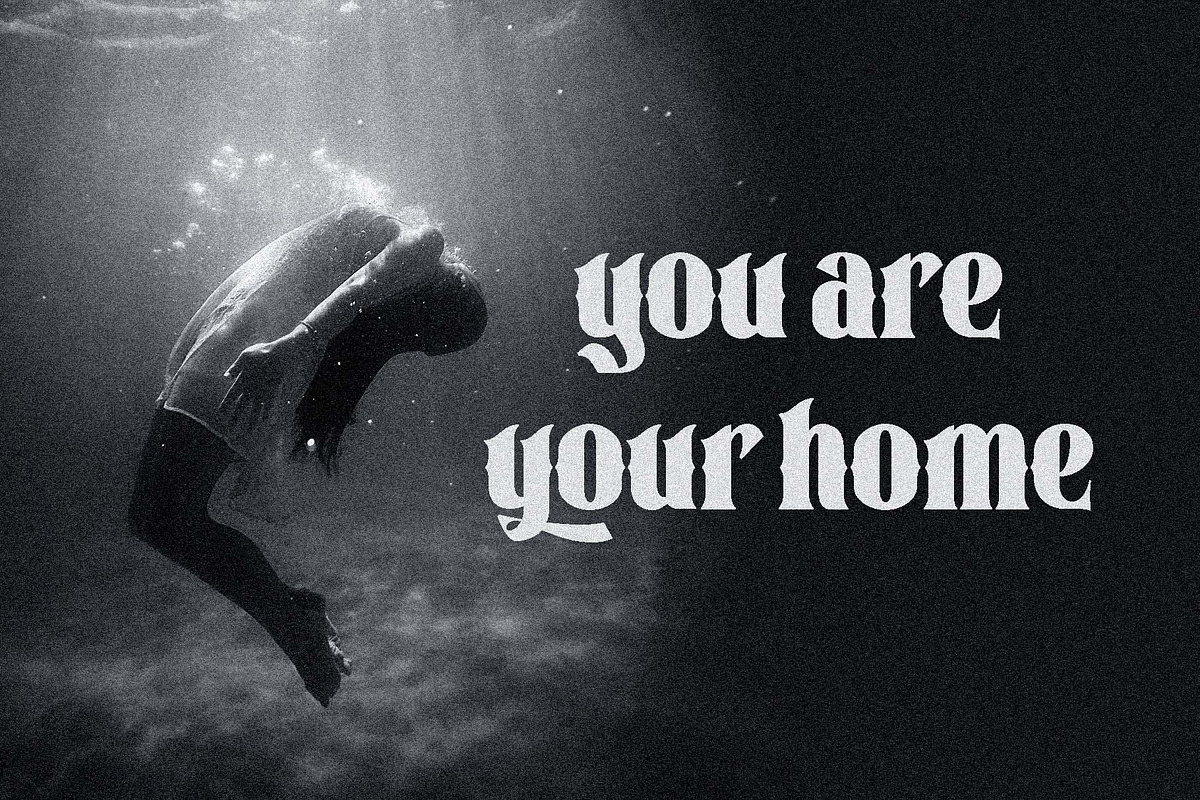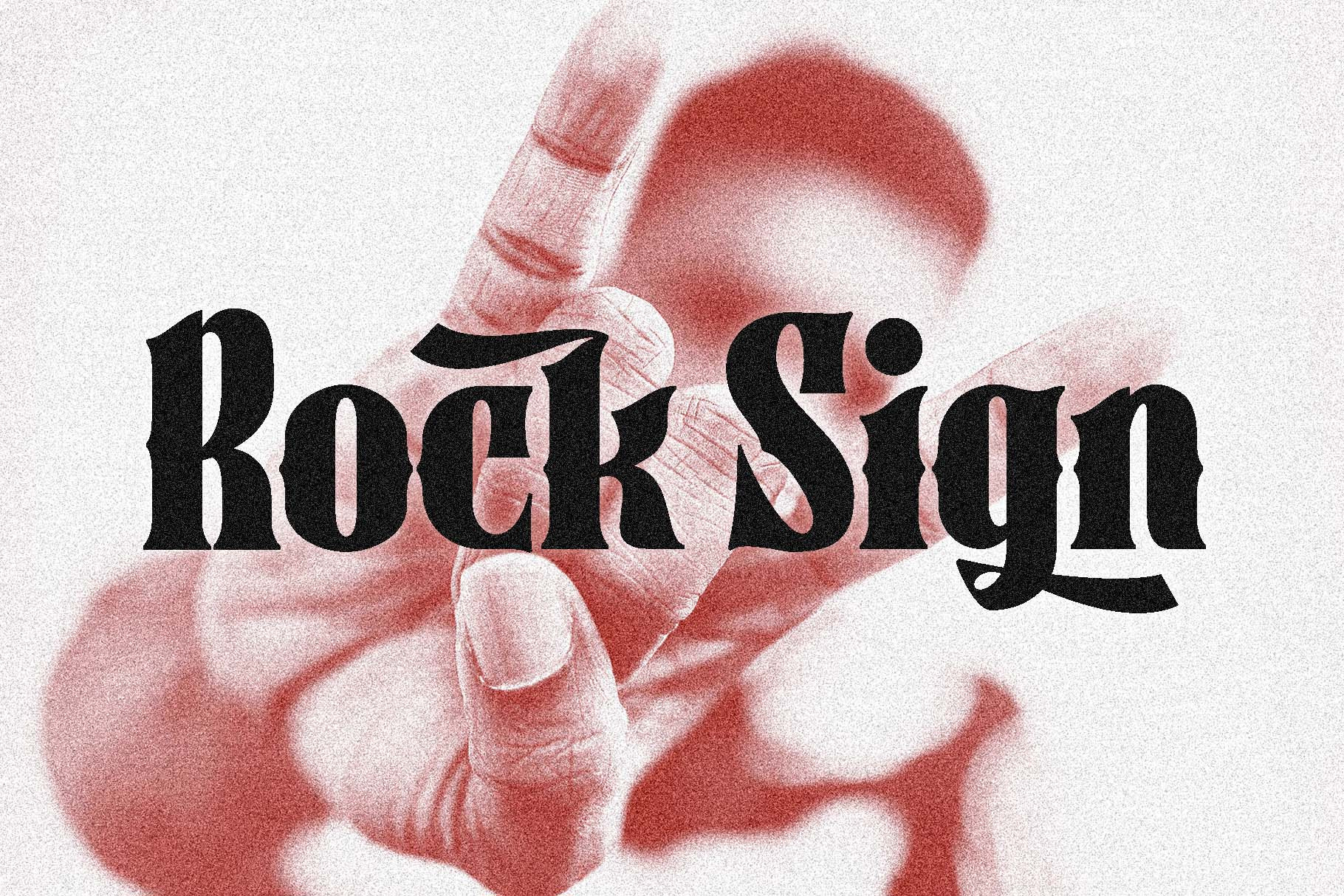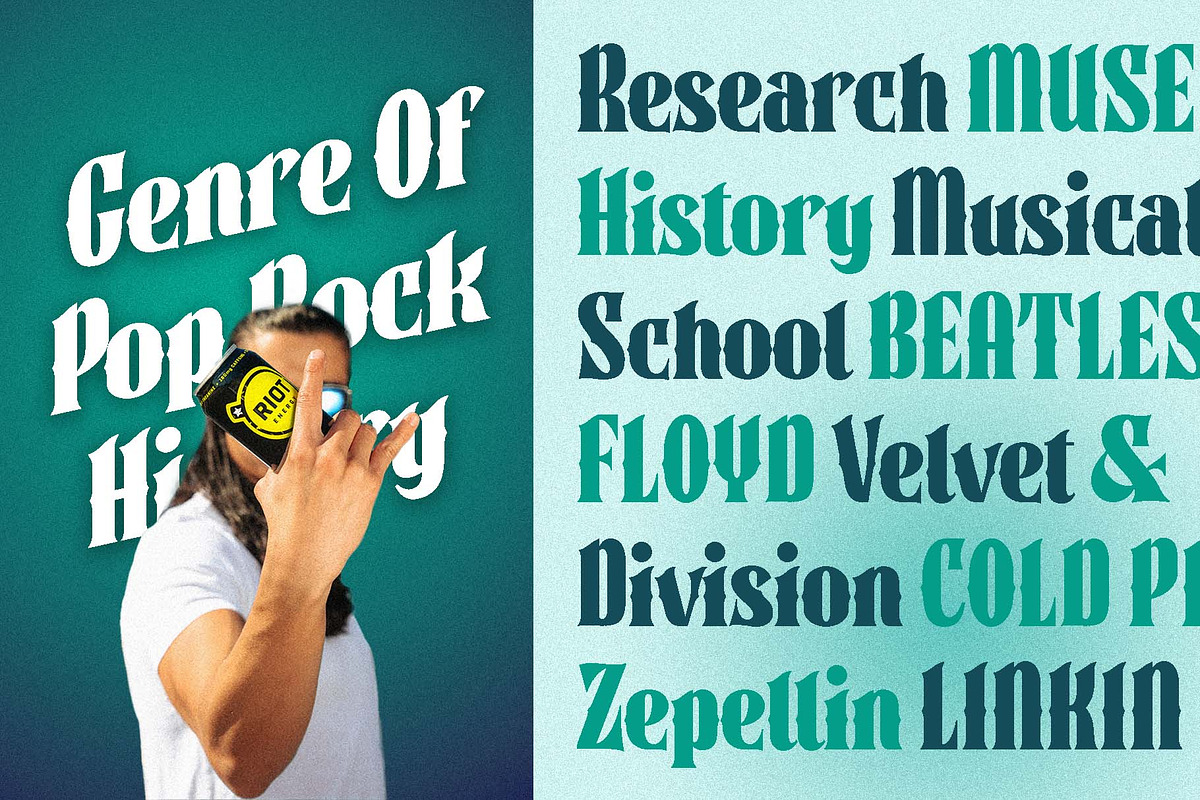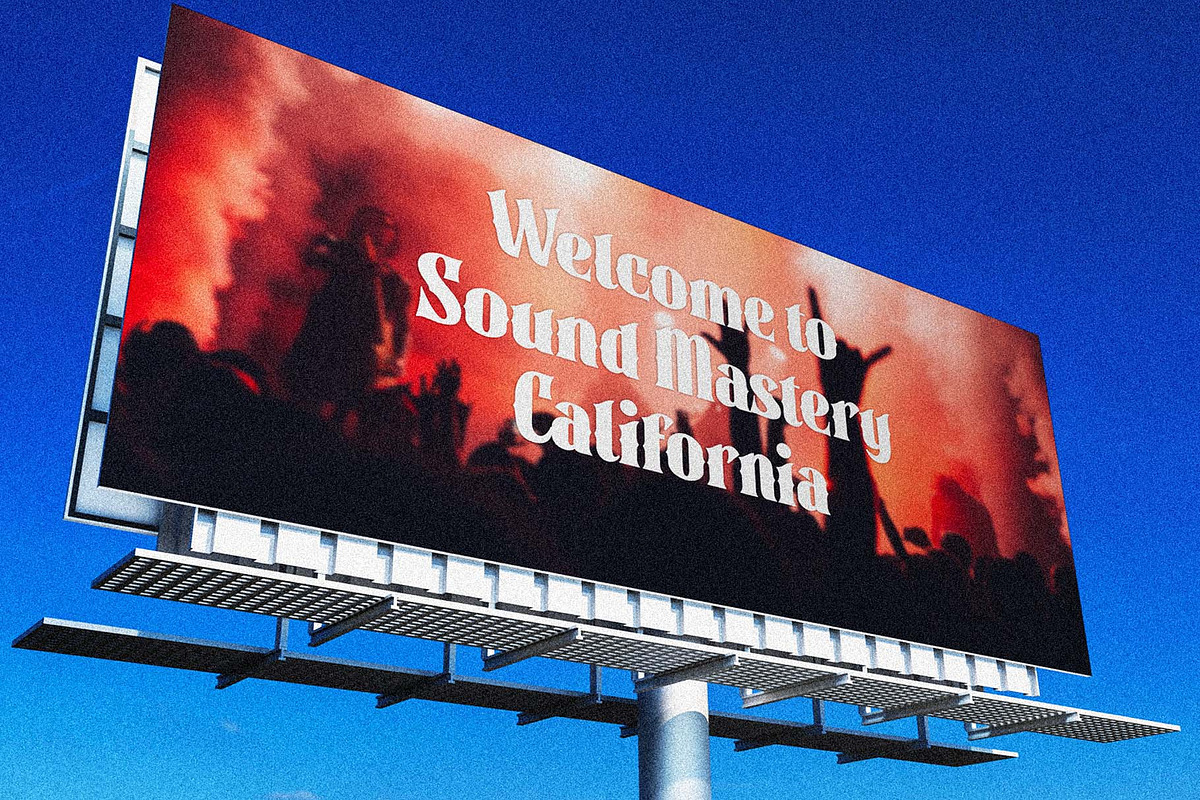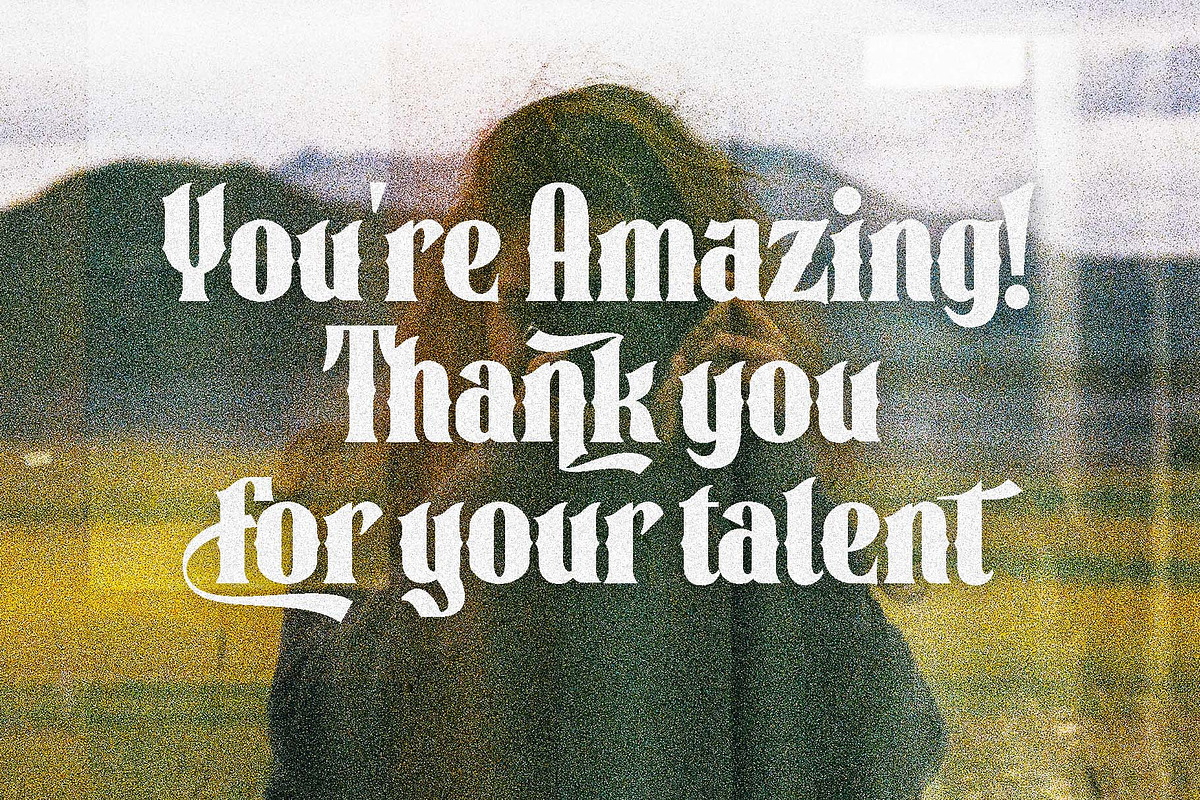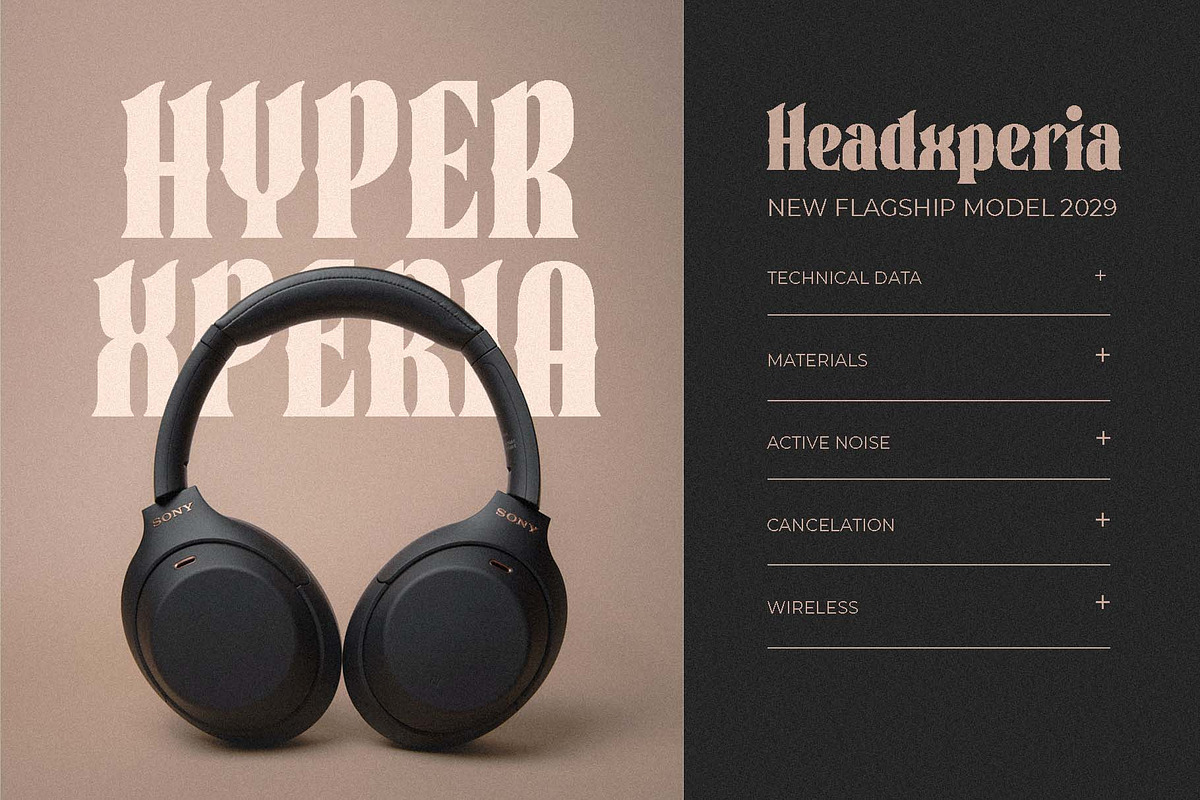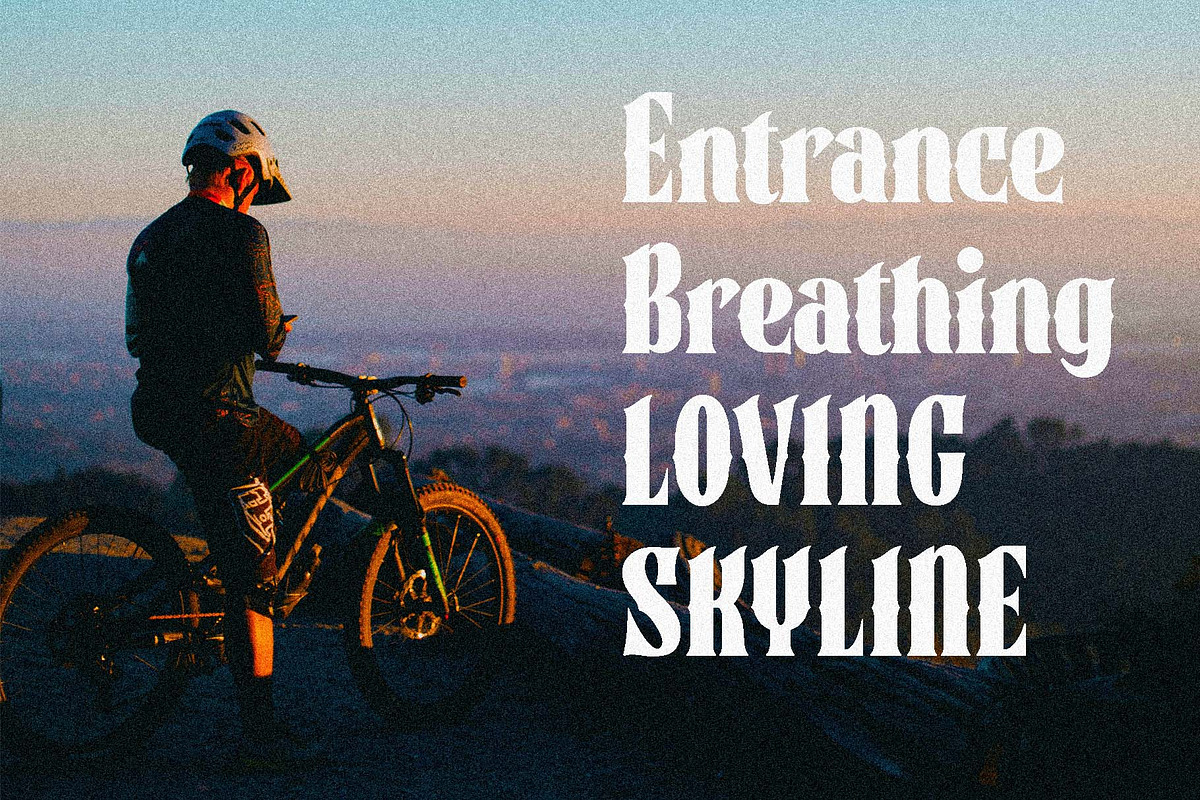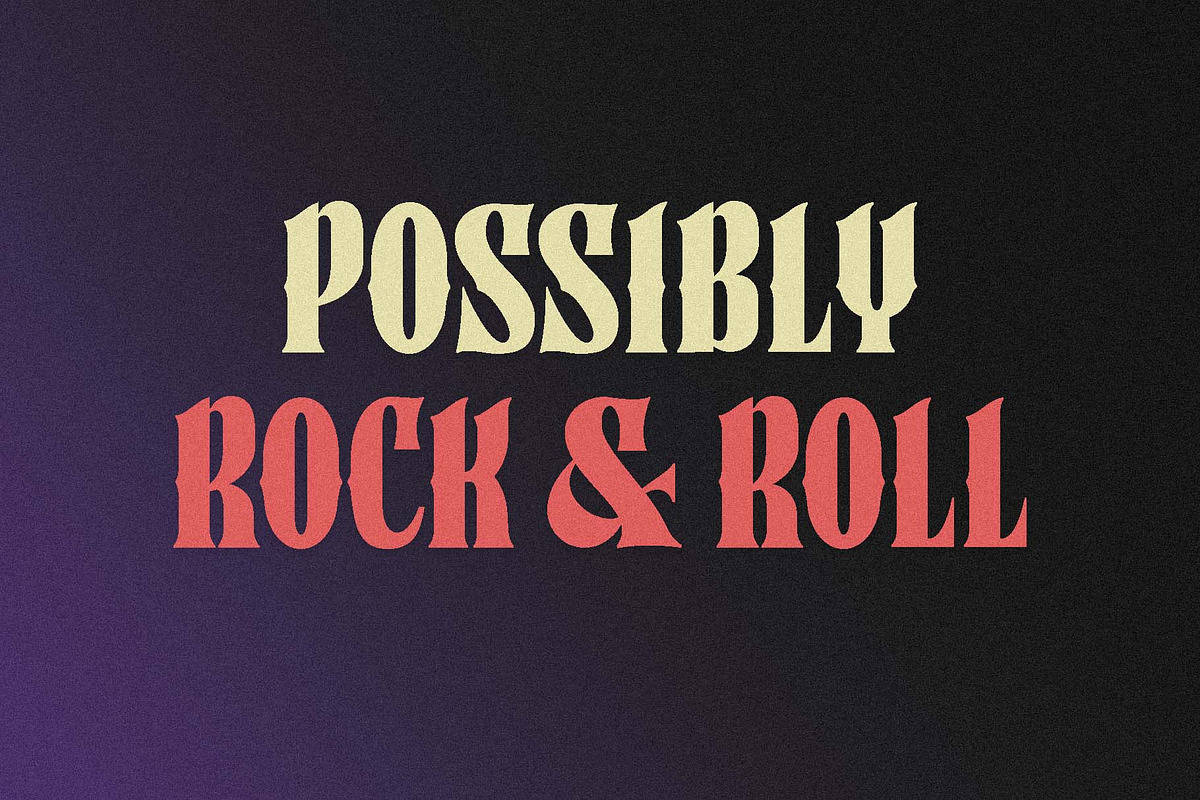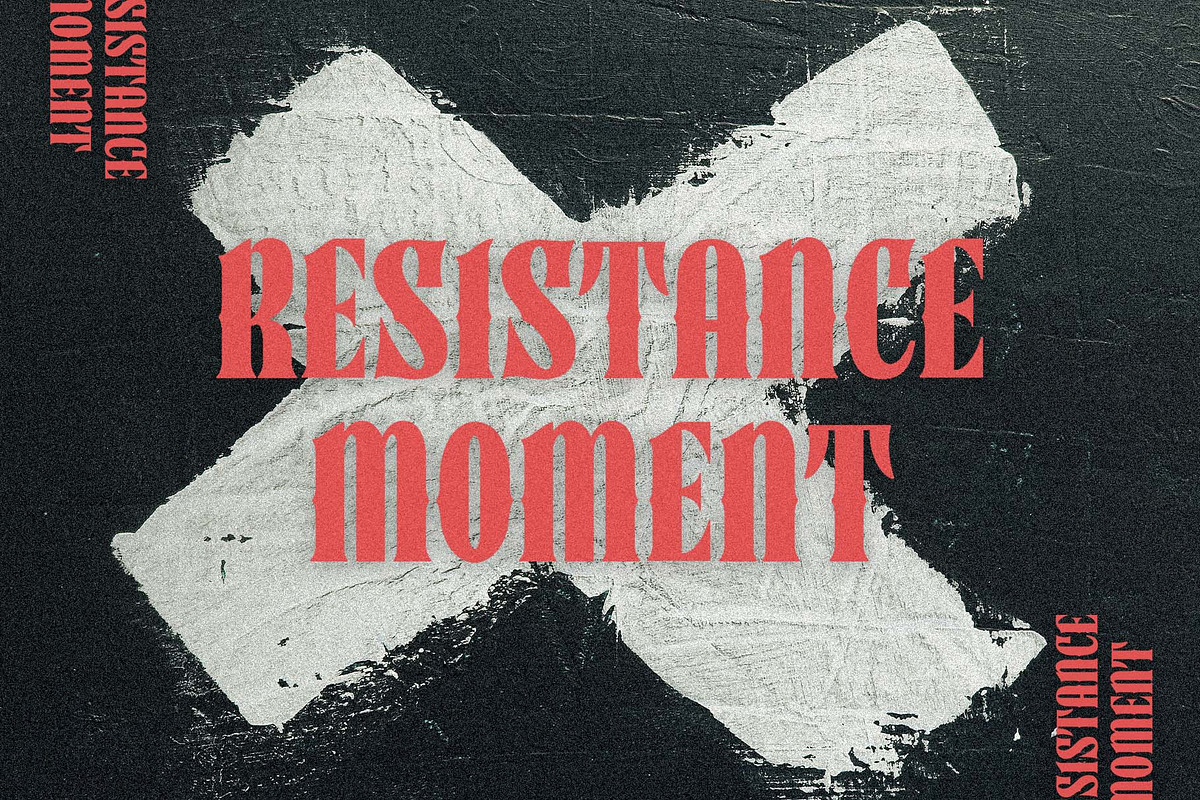
Rock Sign Typeface
Rock Sign Typeface is a display typeface inspired by the rock music genre. This typeface has a bold and artistic feel. Consisting of very stylized upper and lower case letters, the combination produces cool and easy-to-read text.
This Rock Sign Fonts are great for titles, headlines, logos also perfect for websites, magazines, printed materials and branding. This display fonts are easy to read on digital devices, making them a great choice for social media post or web design projects.